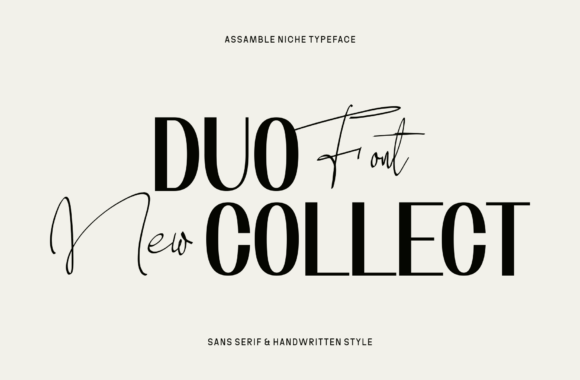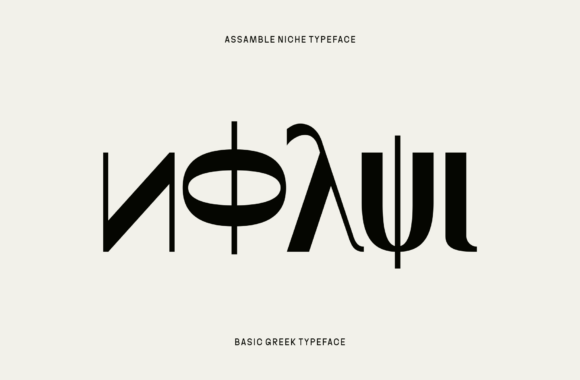
Assemble Niche Font
Assemble Niche is a refined font duo that combines a bold modern sans serif with an elegant handwritten script, designed to complement each other in high-end branding and editorial applications. The flowing design of adds a dynamic visual element that overlaps seamlessly with the sans serif text, creating a balanced and visually engaging composition. Together, this font duo evokes elegance, creativity, and modern sophistication, making it particularly suitable for fashion brands, upscale packaging, lifestyle publications, and boutique visual identities.